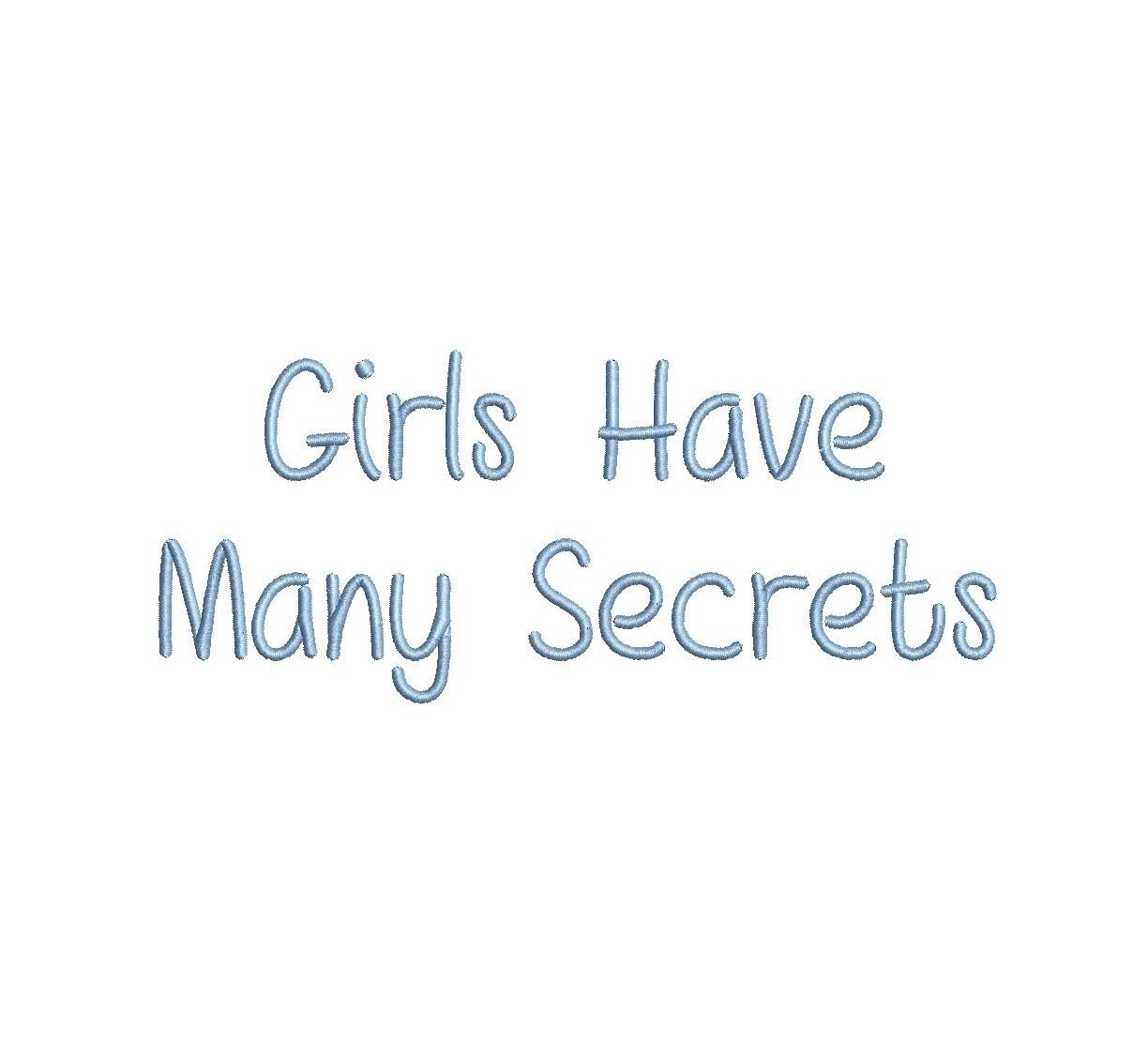
Unveil the charm of Girls Have Many Secrets Regular ESA font, where elegance and mystery converge. This enchanting and versatile typeface adds allure to your designs. Crafted with meticulous attention to detail, this premium font guarantees a seamless and enjoyable design experience. Compatible with Wilcom Studio e4.5.6 and Hatch 3 versions and up, it ensures smooth embroidery creation. Whether it's feminine projects, sophisticated branding, or captivating art, Girls Have Many Secrets Regular ESA font exudes a touch of hidden magic. Embrace its captivating allure and create designs that keep secrets in the spotlight. Get it now and captivate your audience.